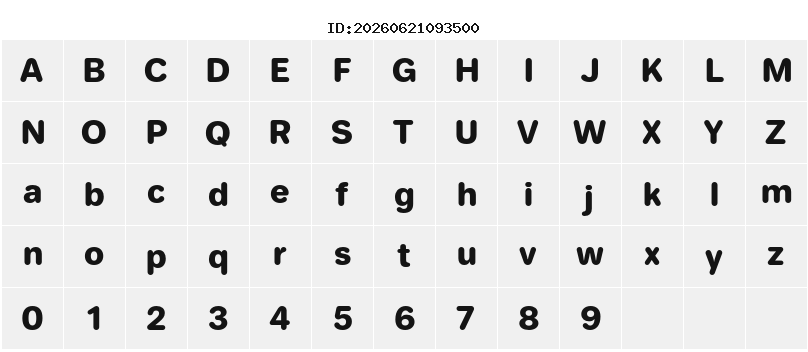
Jellee Bold Preview
• Font Name: Jellee Bold
• Full Font Name: Jellee Bold
• Designer: Alfredo Marco Pradil
• Manufacturer: Hanken Design Co.
About Jellee Bold.otf
Jellee Bold.otf is a modern, elegant sans-serif font designed for ultimate readability and visual harmony. Perfect for branding, headlines, web design, and print materials.